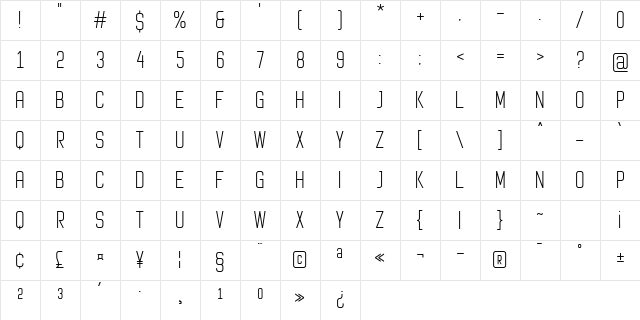
Protique Light Free Font
Protique Light
Foundry: Shanaya Creative Studio
Designer: Wahyu Sa
Design Context for Protique
Protique is a composed and adaptable typeface that performs quietly and consistently across a wide range of design contexts. Its slender proportions lend an understated elegance to any composition.